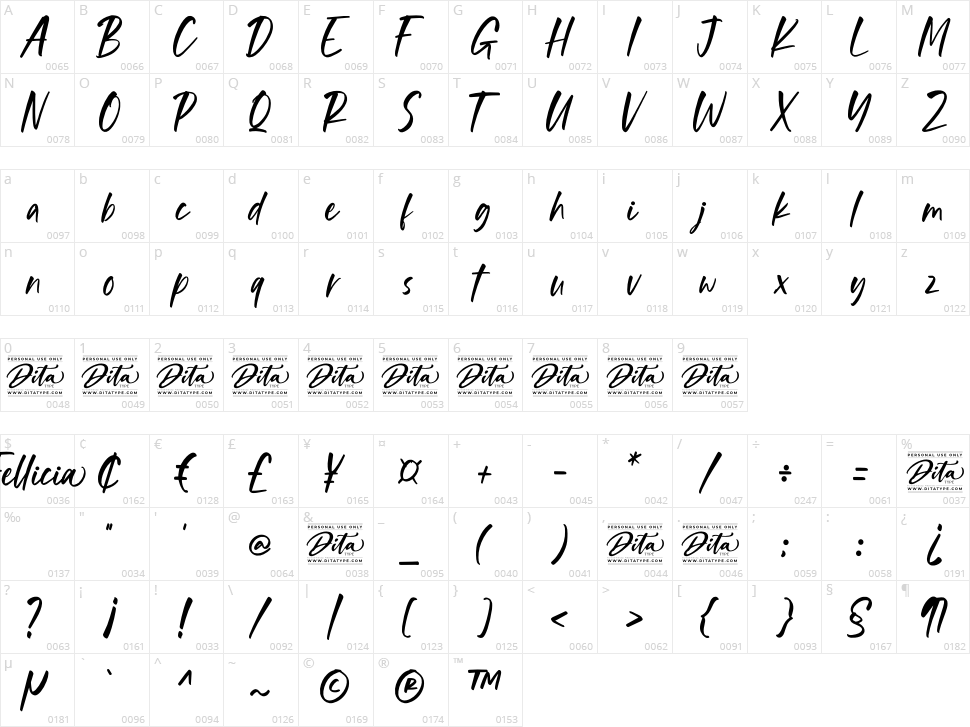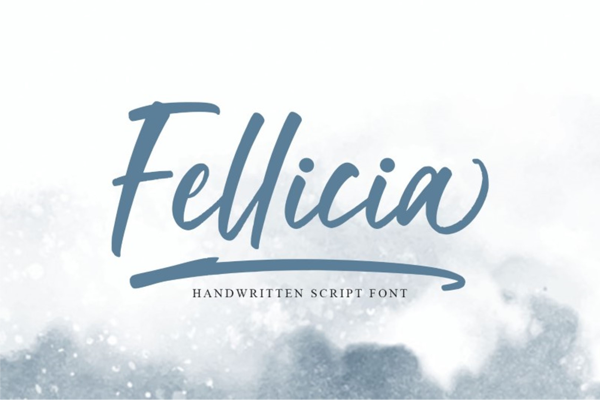
Fellicia
Fellicia is a modern handwritten font. With a classy and natural handwritten style, it brings a classy and chic typeface. Fellicia is best used for weddings, branding, logotype, and quotes.